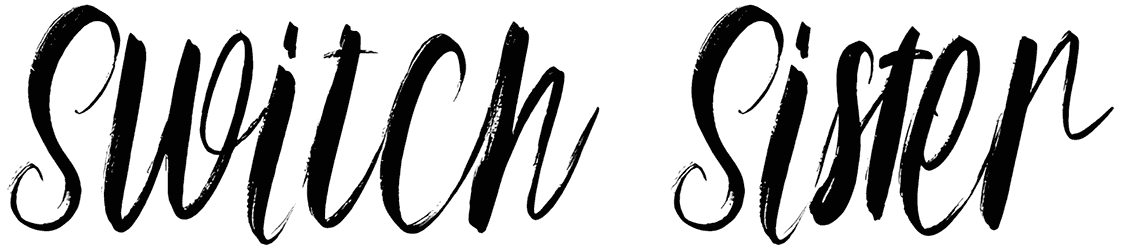
Switch Sister Font
Need a cool and urban handwritten face to display your design? Well, it can be attractive for you to have a manual brush font with nice curves. Switch Sister, as a script font, can be matched with various subjects and designs, for instance, flyers, logotypes, social media posts, and others like them, even with no offer for numbers and most of the punctuation.